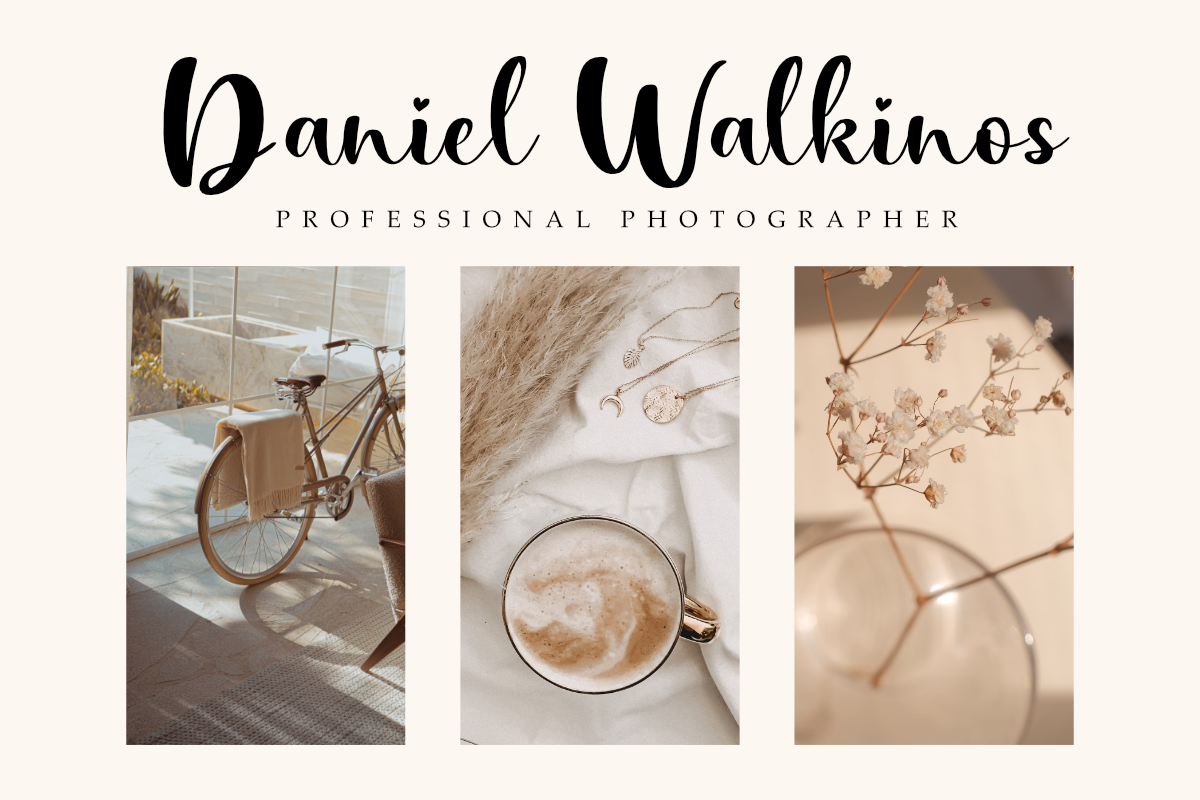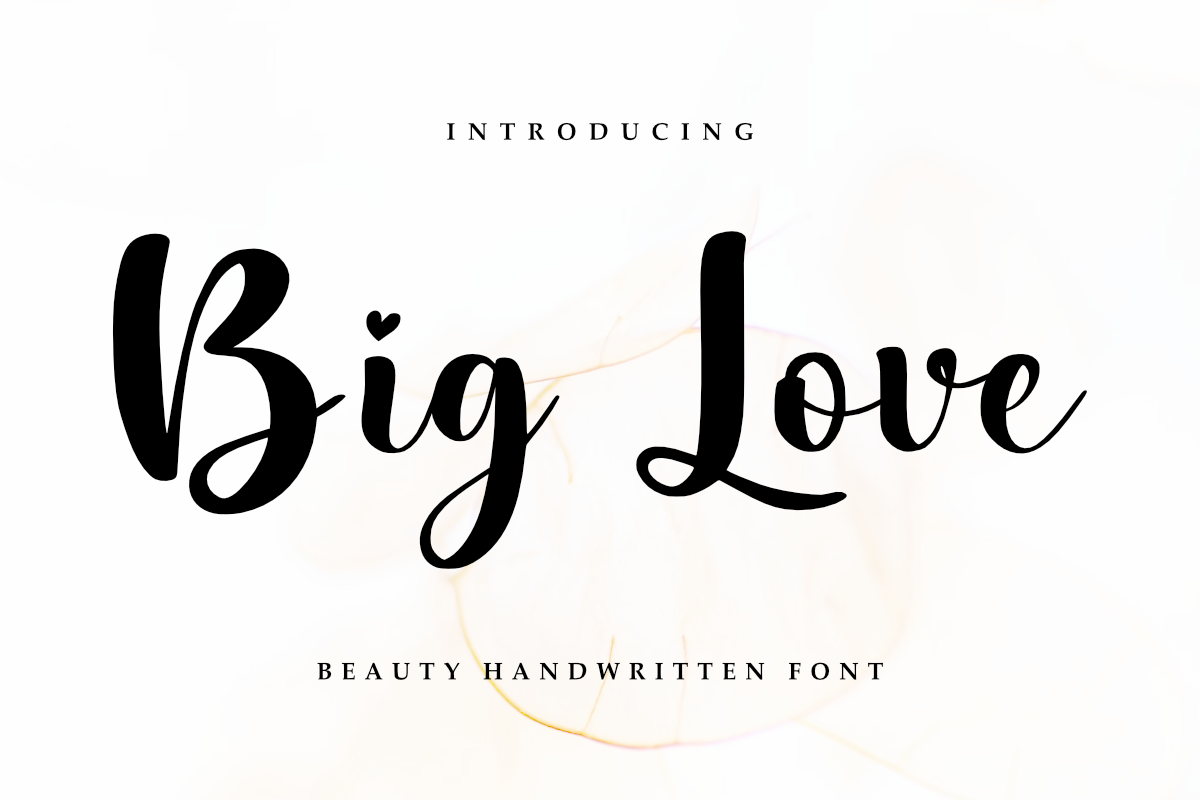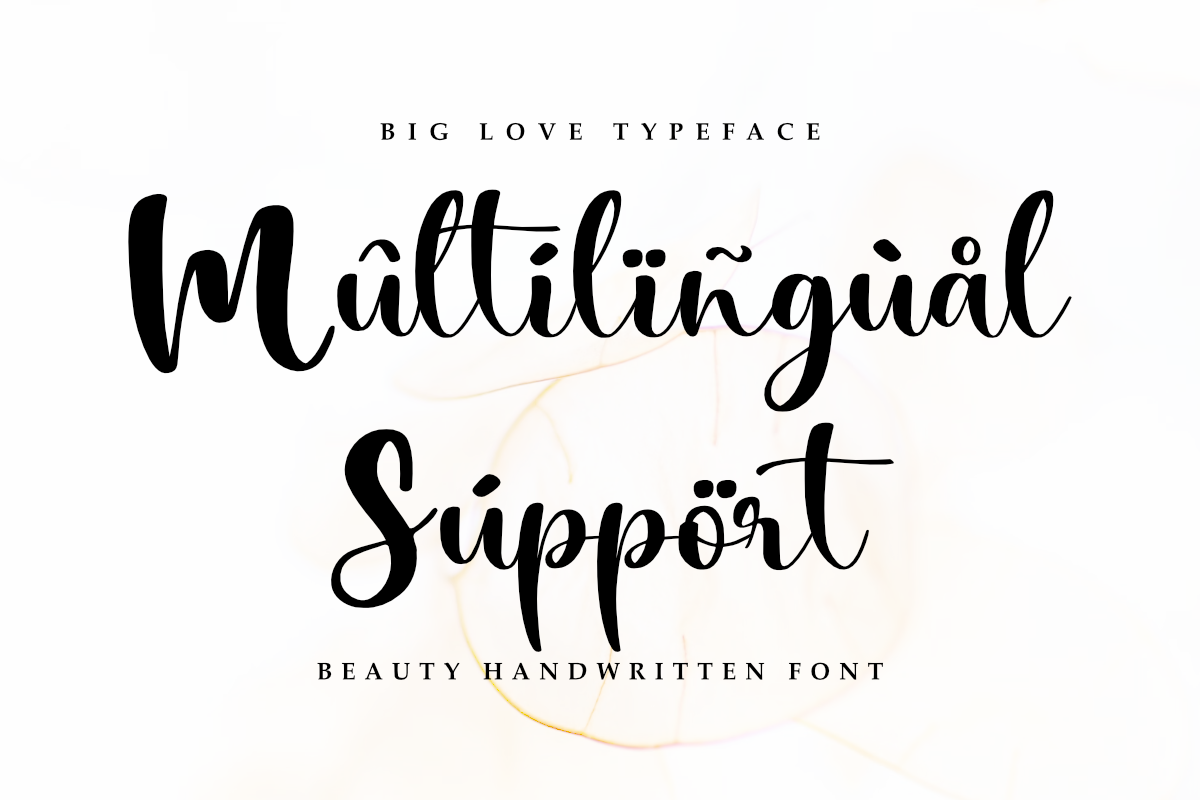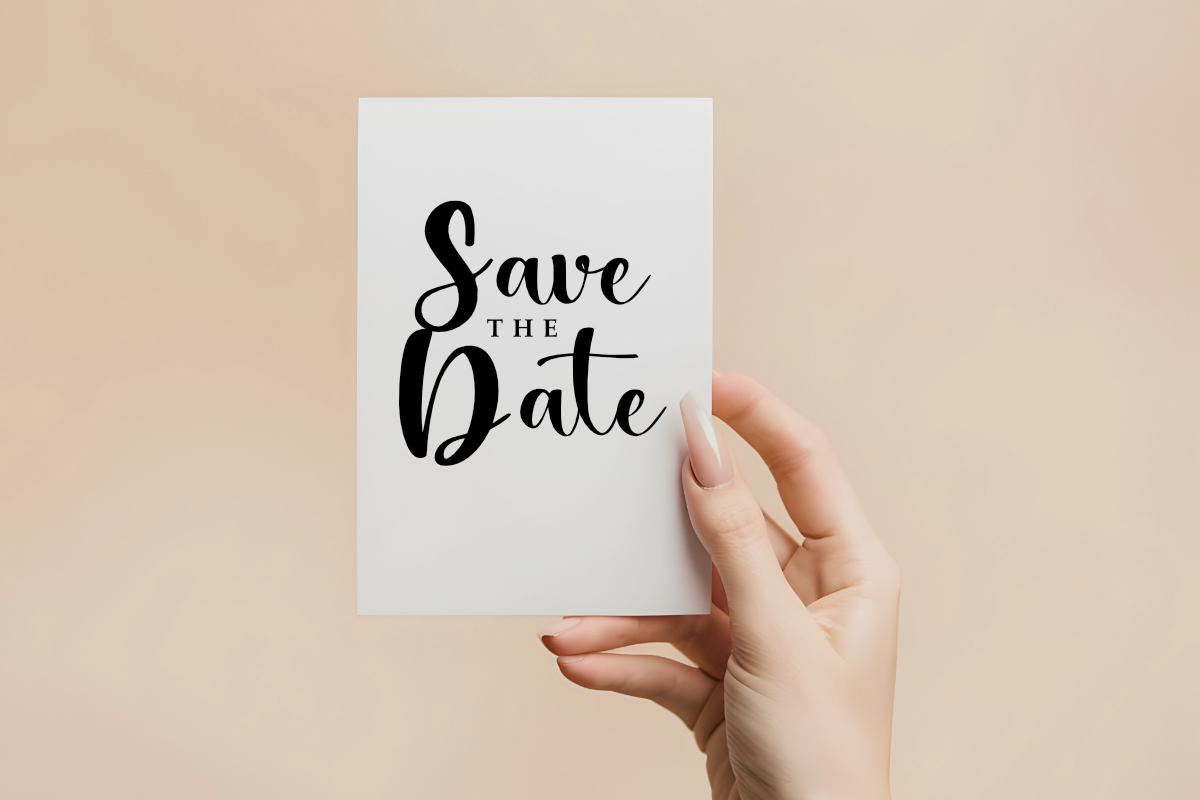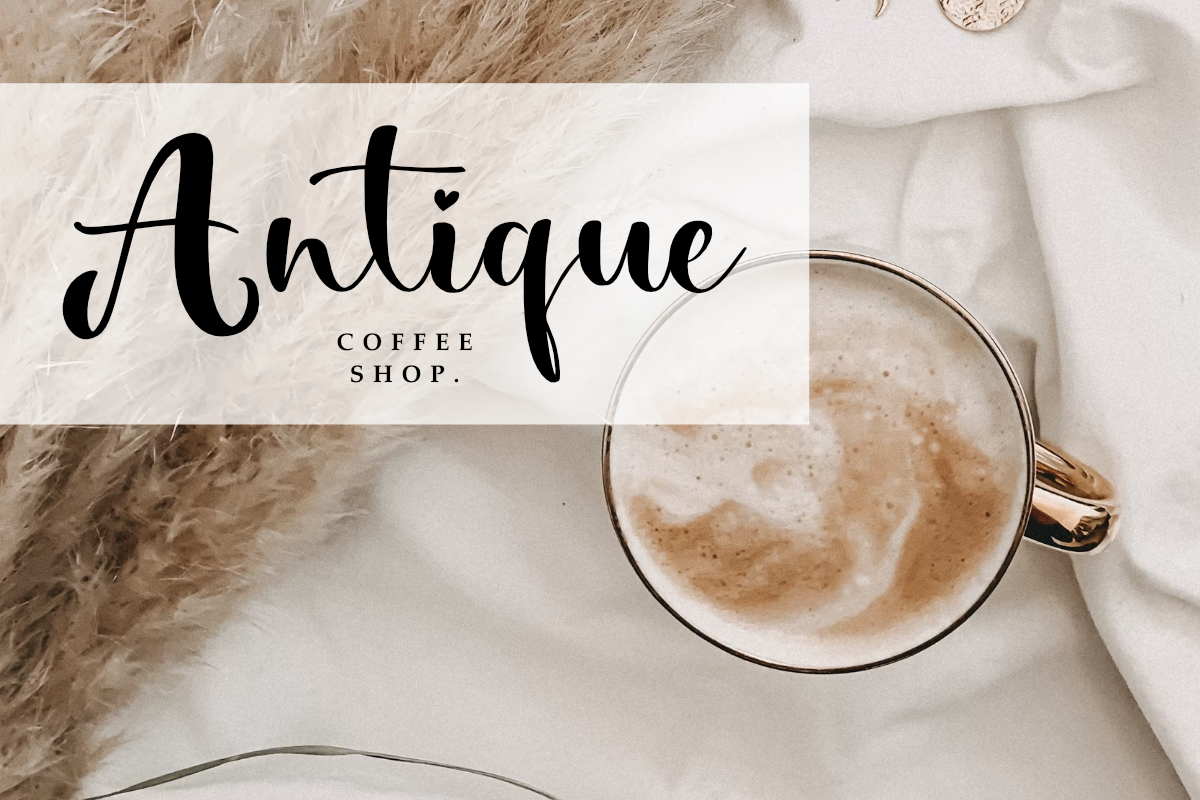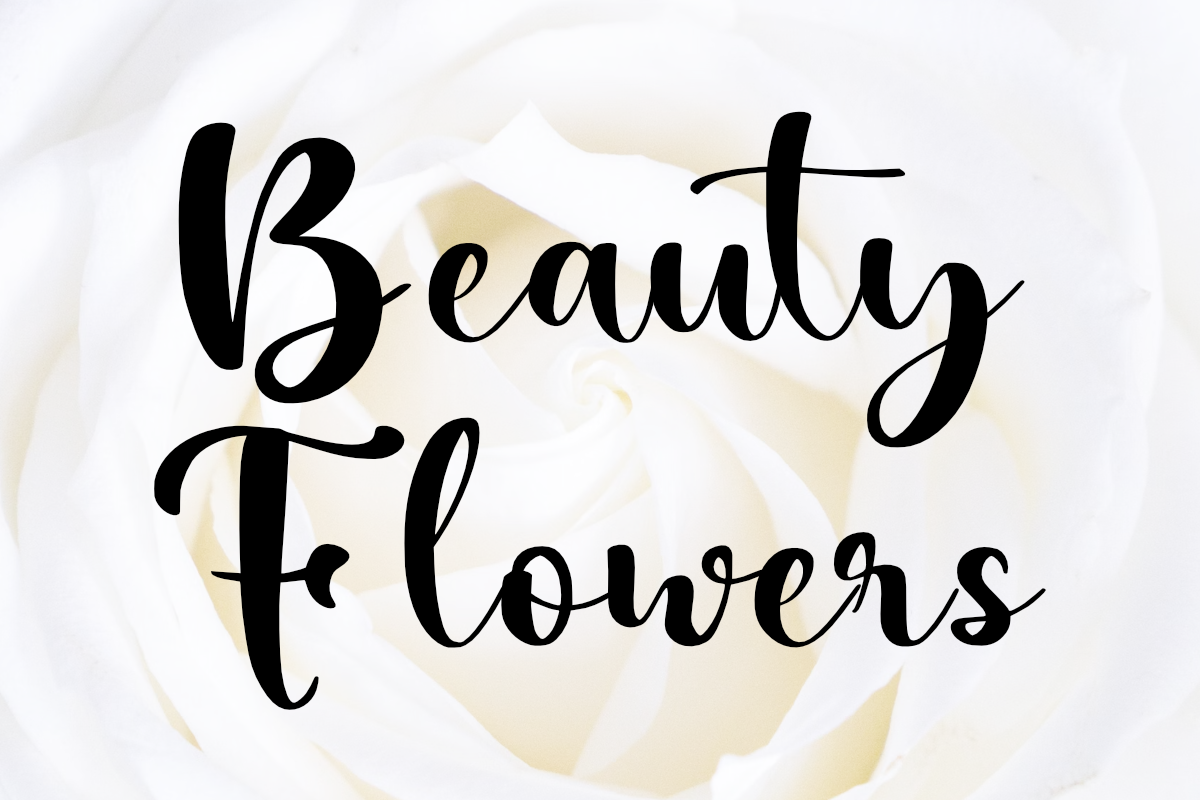
Big Love - Wedding Font
Big Love is a beautiful handwritten script font. font inspired by wedding invitation typography. This font is perfect for wedding invitations, logos, branding, embroidery, laser, laser cut, stickers, t-shirts, quotes, wall art, tumbler mugs, Cricut crafts, and other creative projects that need a beautiful and elegant but still natural touch.